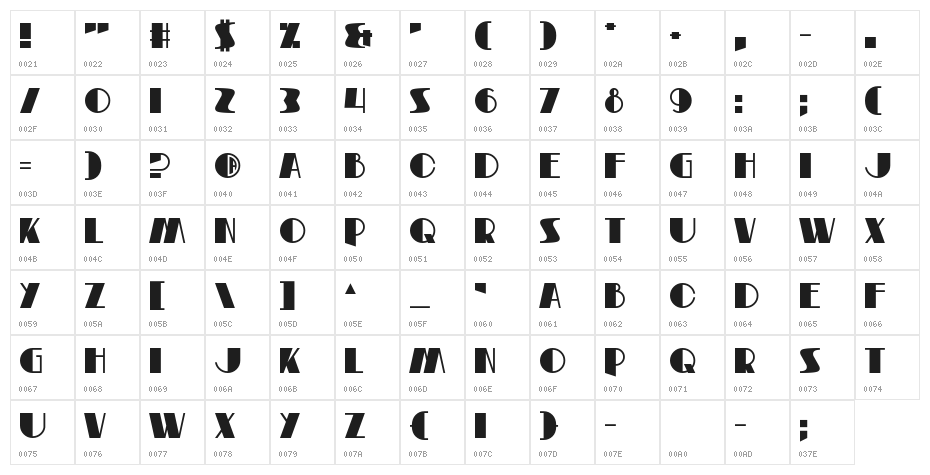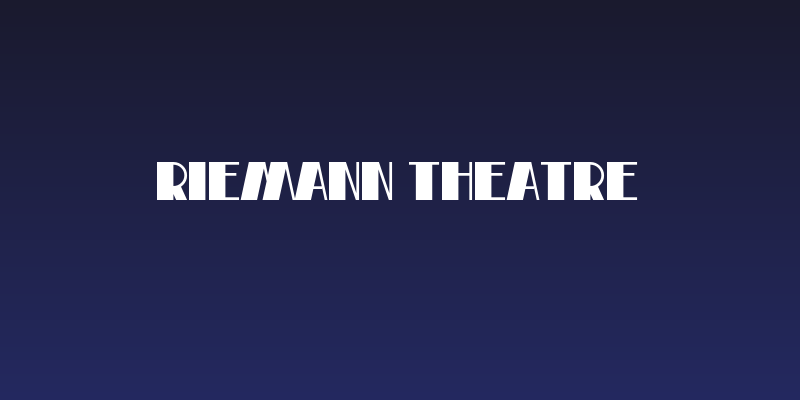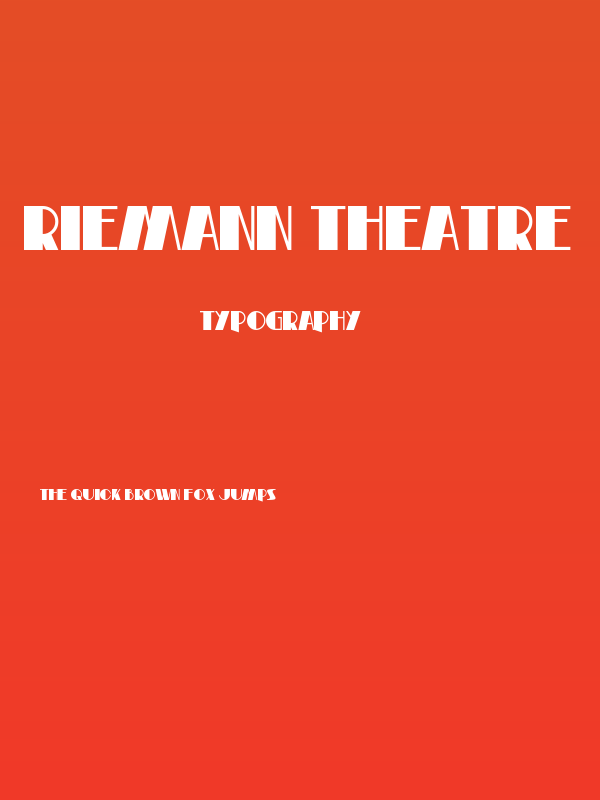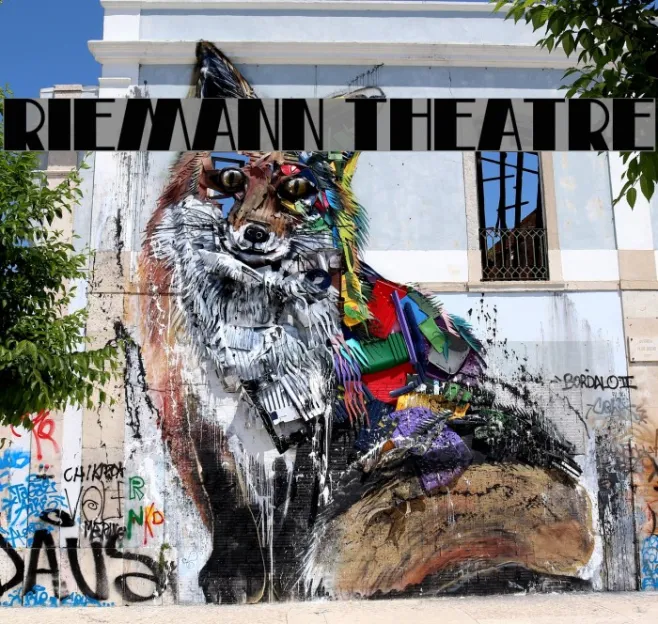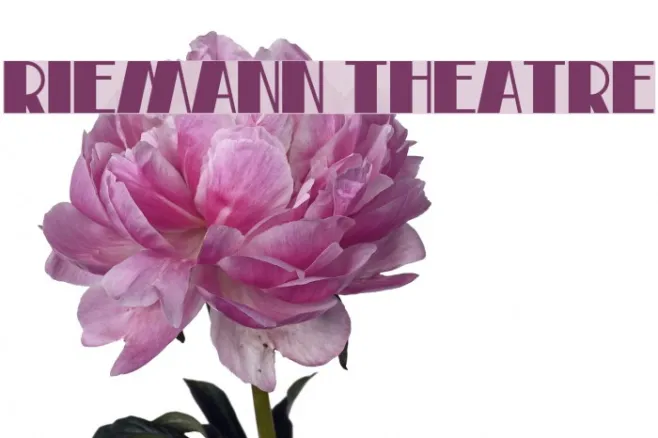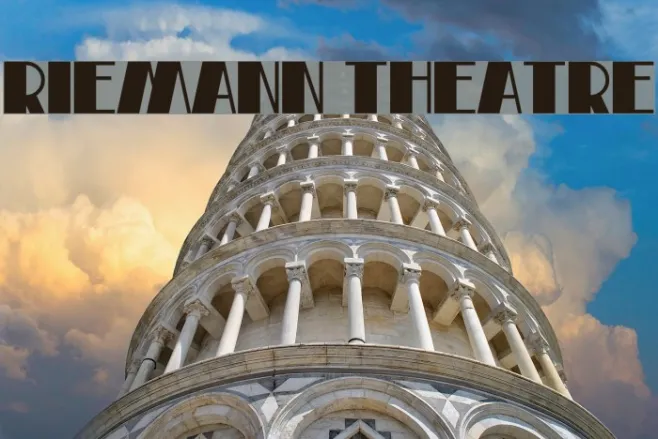
Riemann Theatre Font
Riemann Theatre Description
This font features a bold and geometric design with a strong emphasis on angular shapes and sharp edges. The characters are constructed with a mix of thick and thin strokes, creating a dynamic and eye-catching appearance. The uppercase letters are particularly striking, with unique cuts and angles that give the font a modern and avant-garde feel. The lowercase letters maintain the same geometric style, ensuring consistency across the typeface. Numbers and special characters are designed to match the bold and distinctive style, making this font suitable for a variety of creative applications.